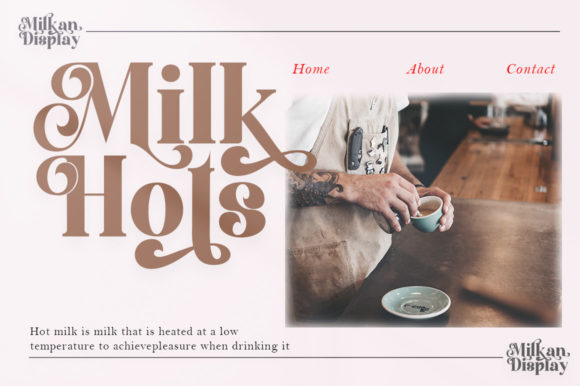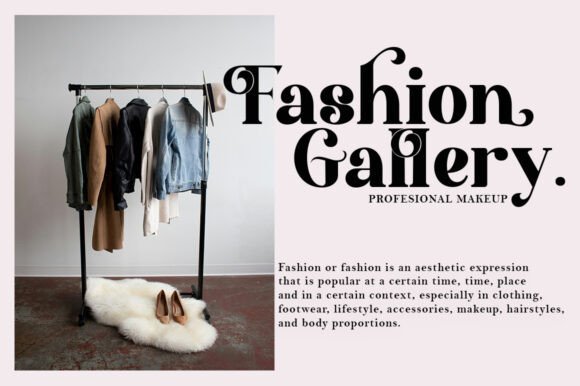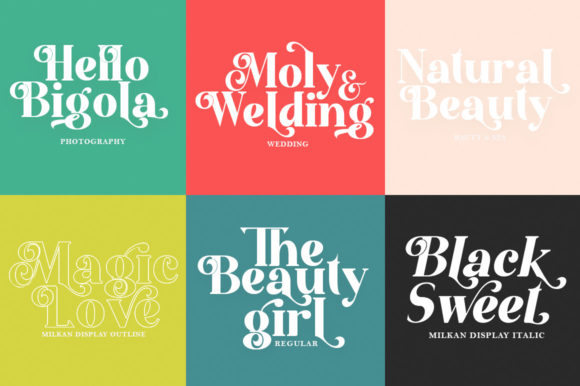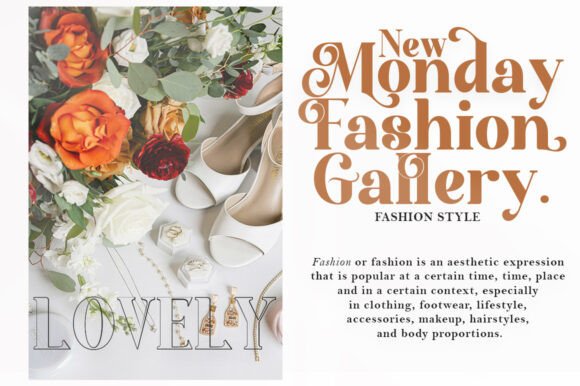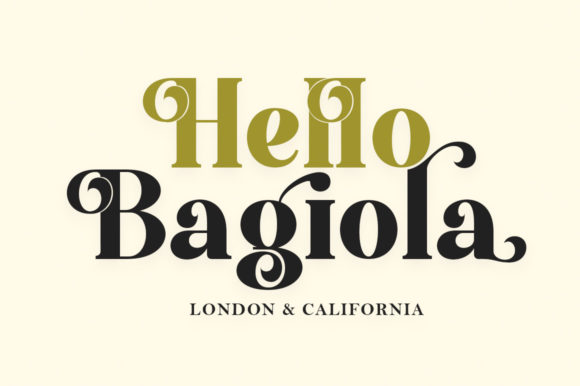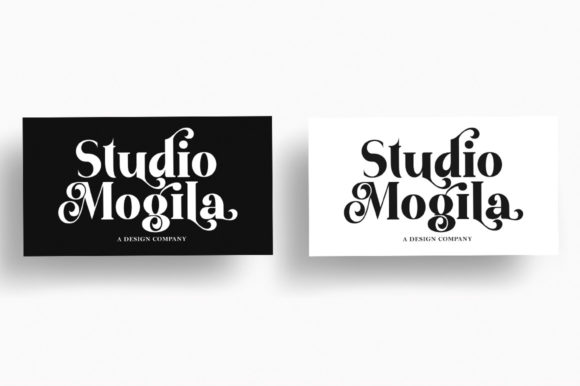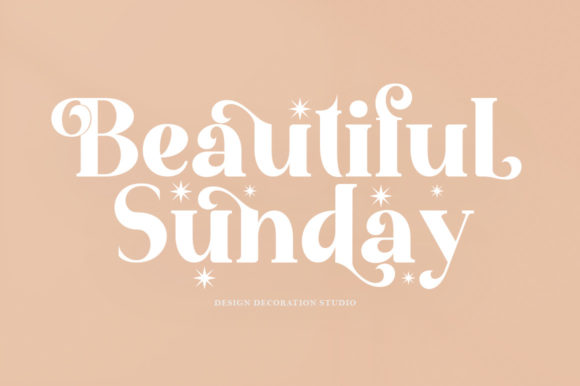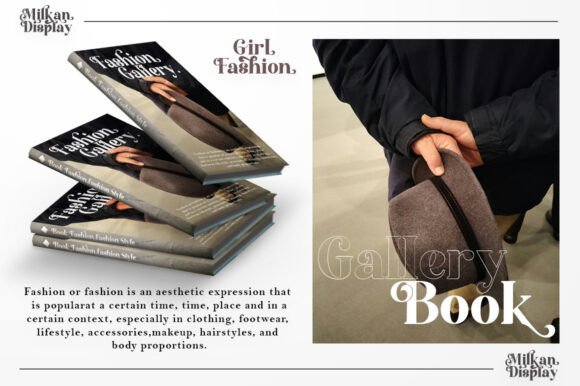
Milkan Display Font
Milkan is a cool and bold thick lettered display font. It looks stunning on wedding invitations, thank you cards, quotes, greeting cards, logos, business cards and every other design which needs a trendy touch.